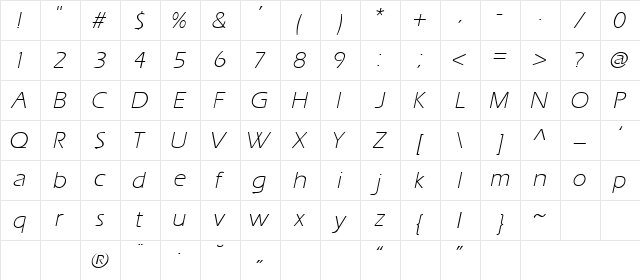
EuroCanal_Lite Italic
EuroCanal_Lite Family
EuroCanal_Lite Italic
Complete EuroCanal_Lite Italic glyph index. Displaying only characters natively supported by EuroCanal_Lite Italic font.
Design Context for EuroCanal_Lite
EuroCanal_Lite is a composed and adaptable typeface that performs quietly and consistently across a wide range of design contexts. The slanted form adds forward momentum and visual energy.